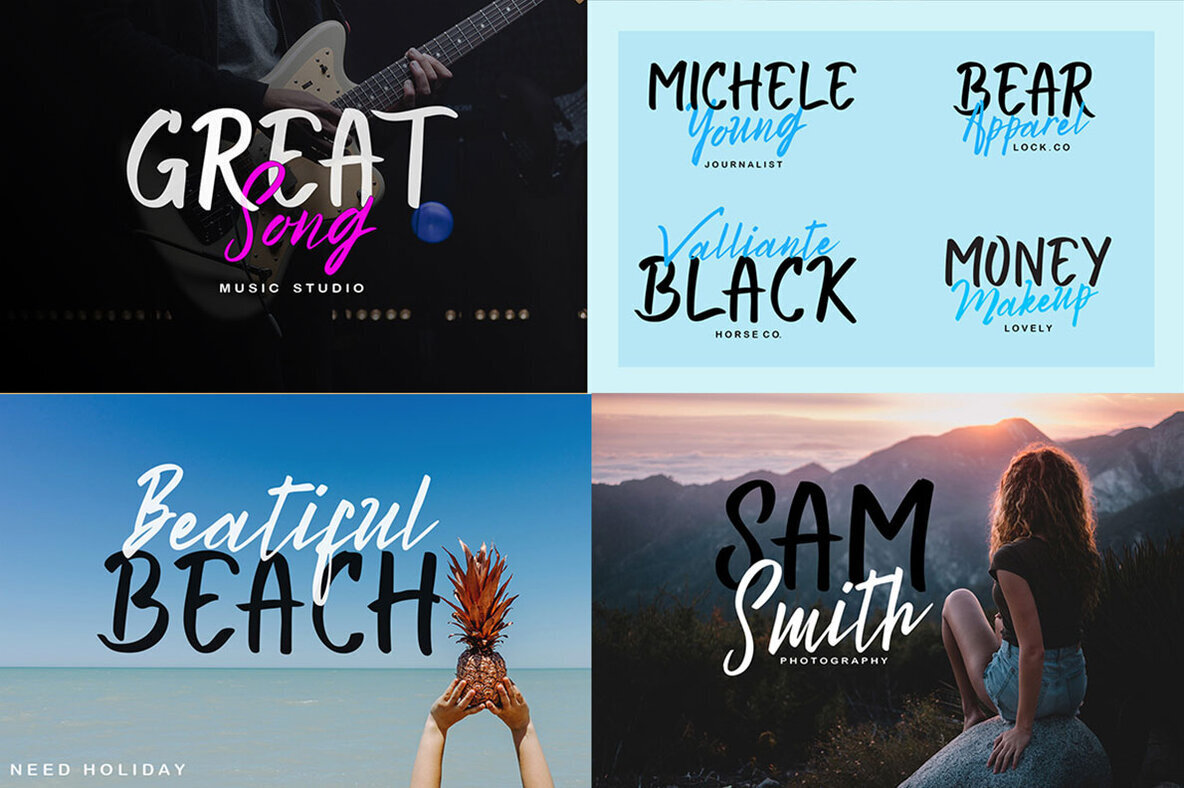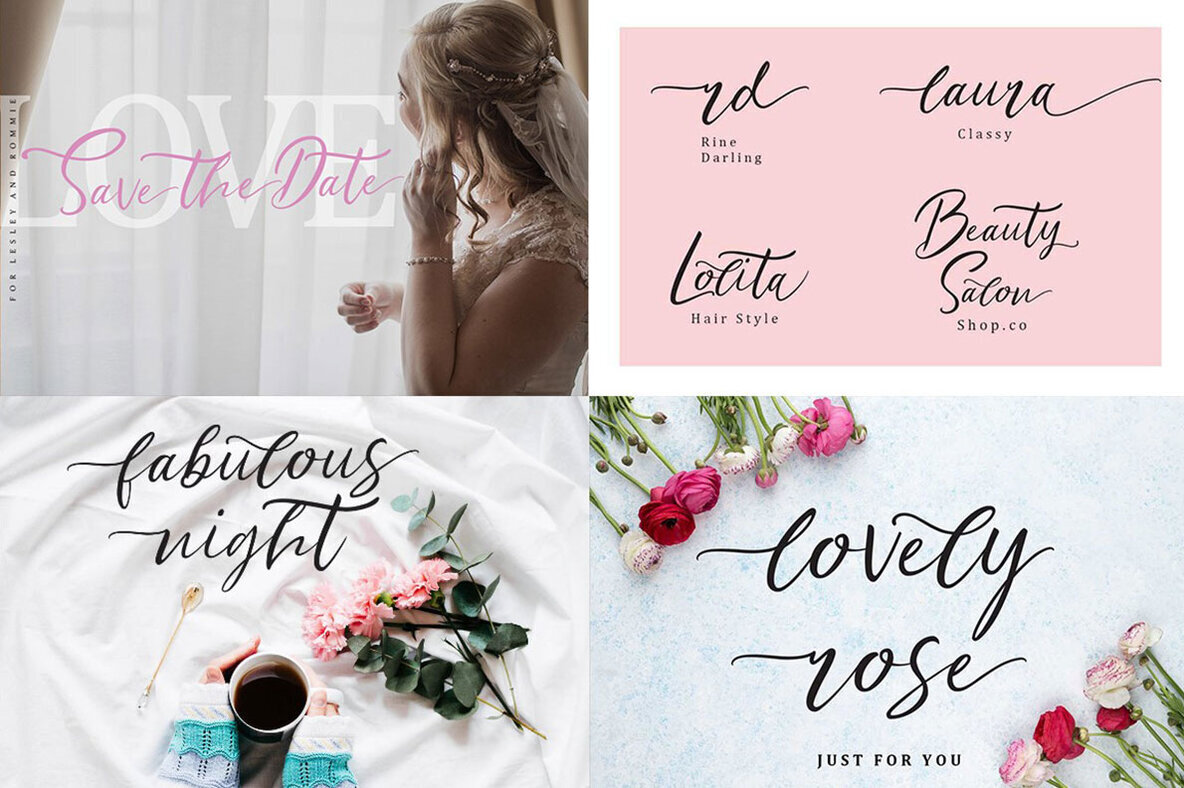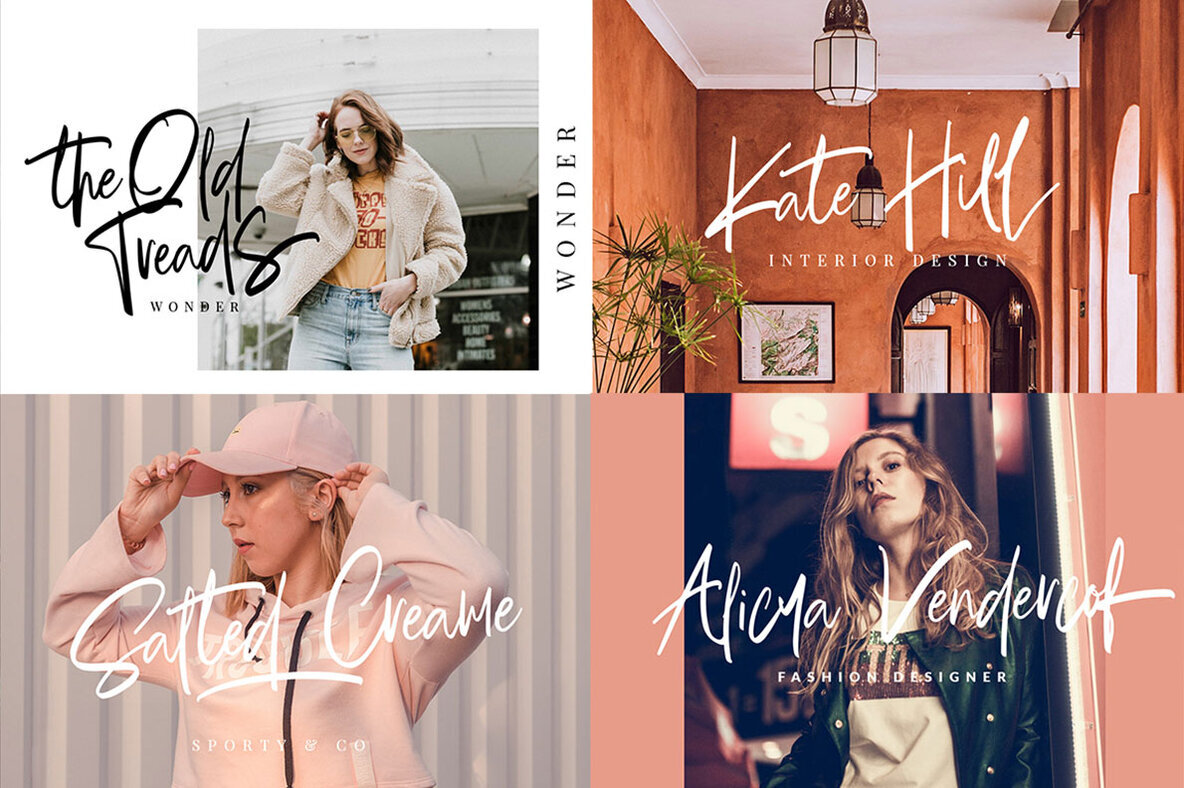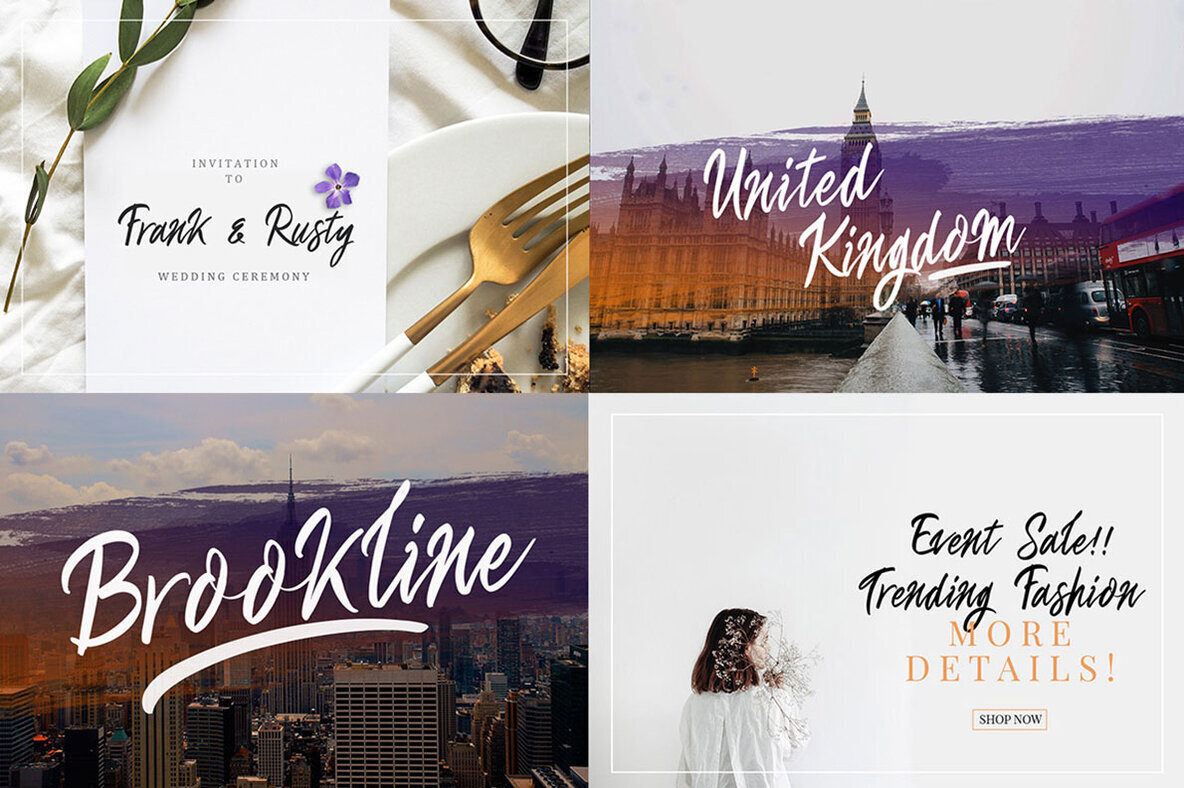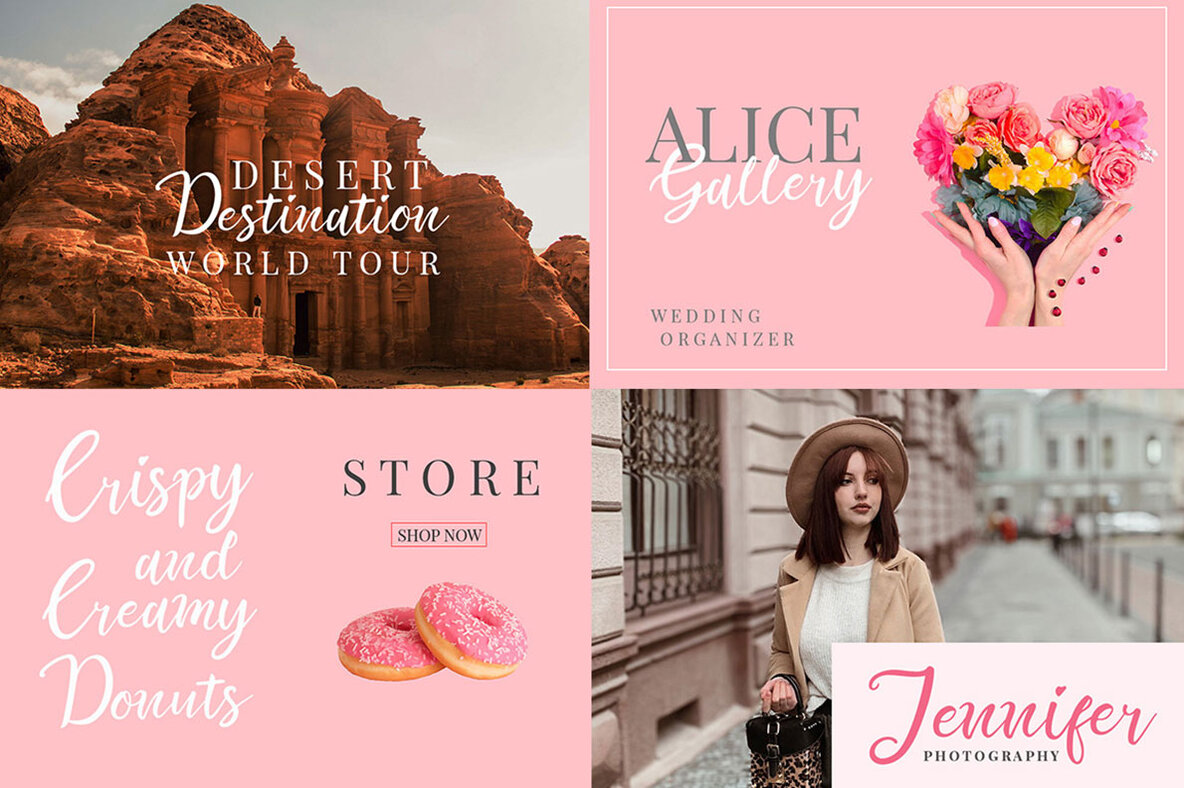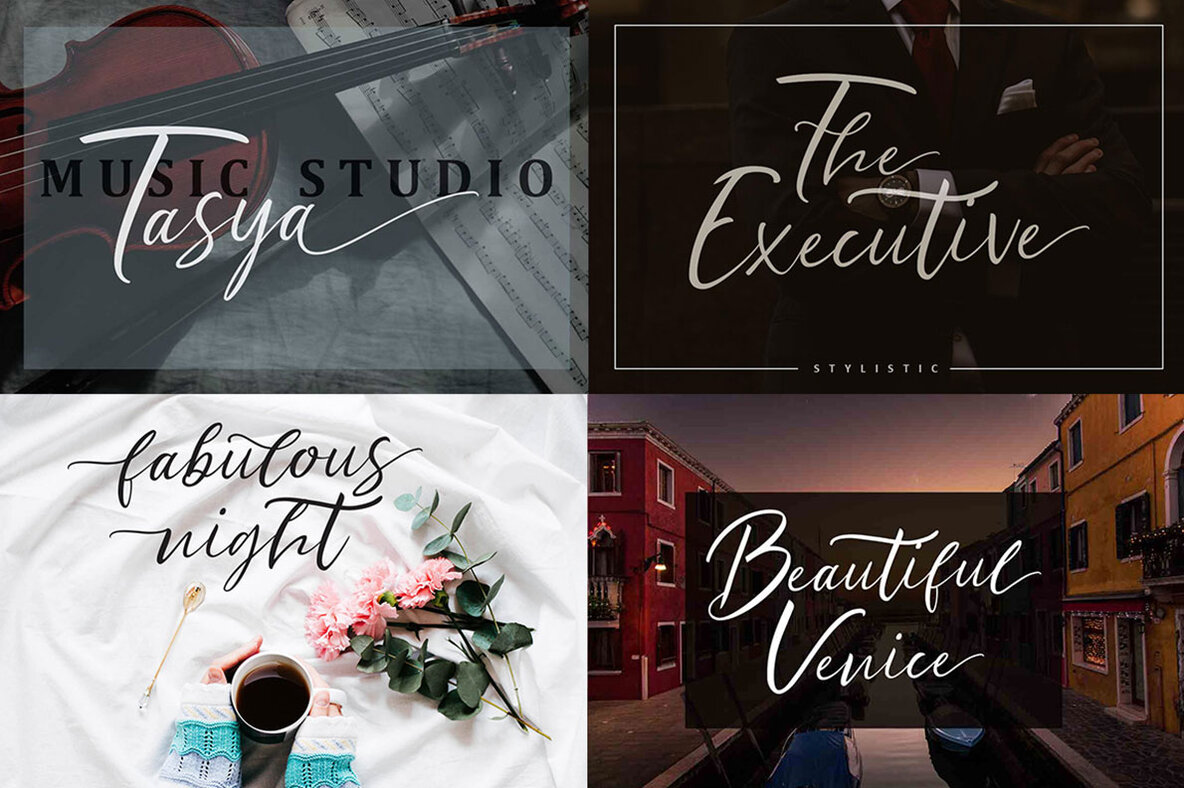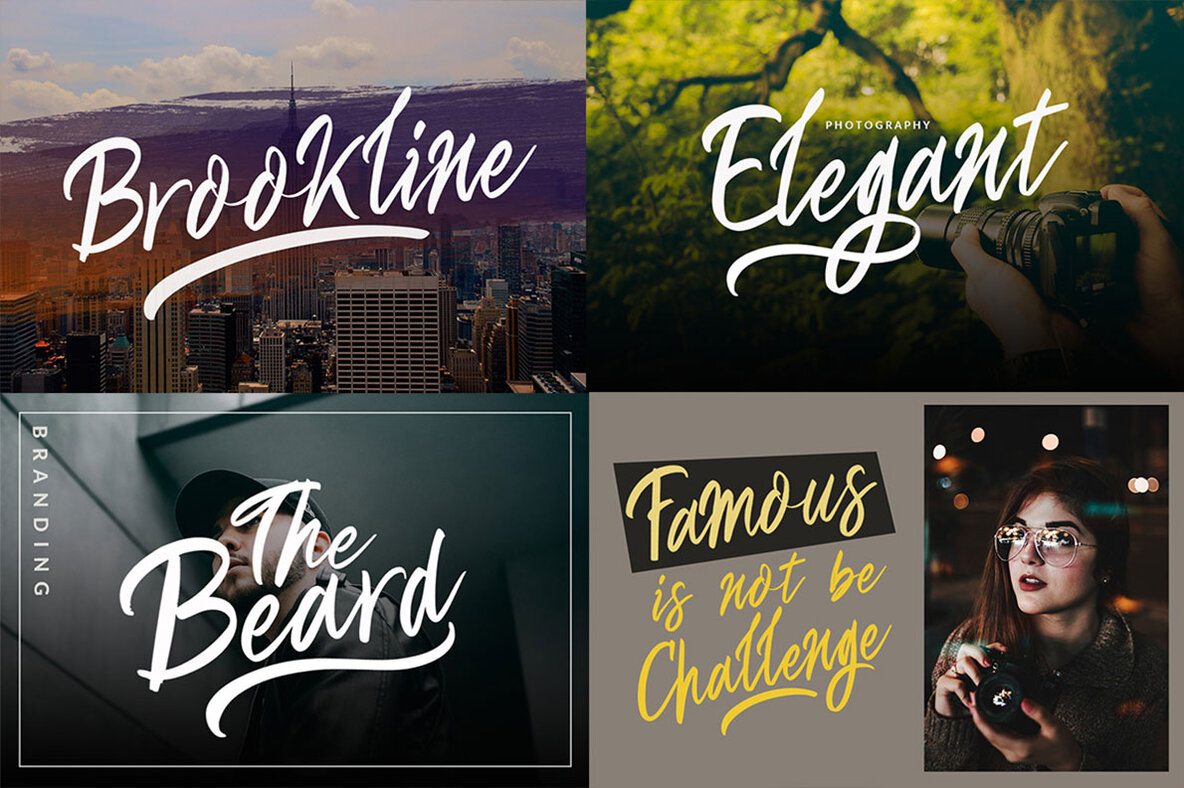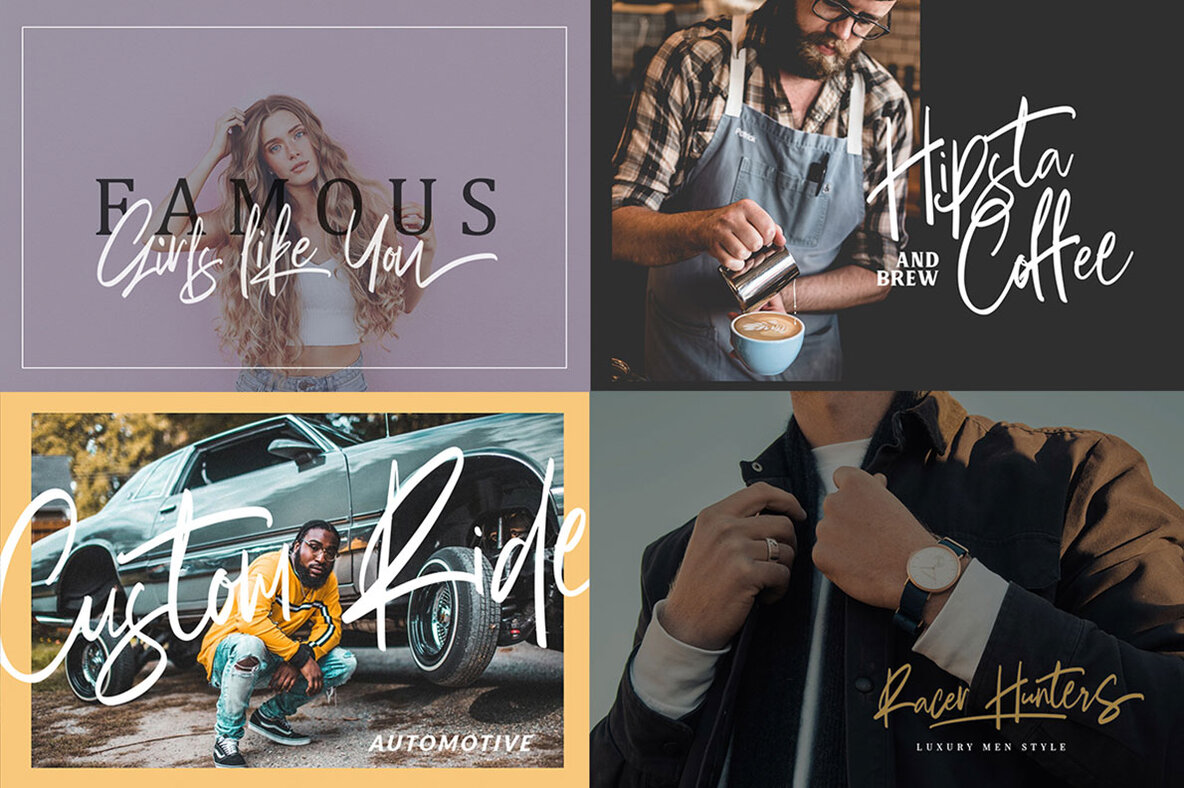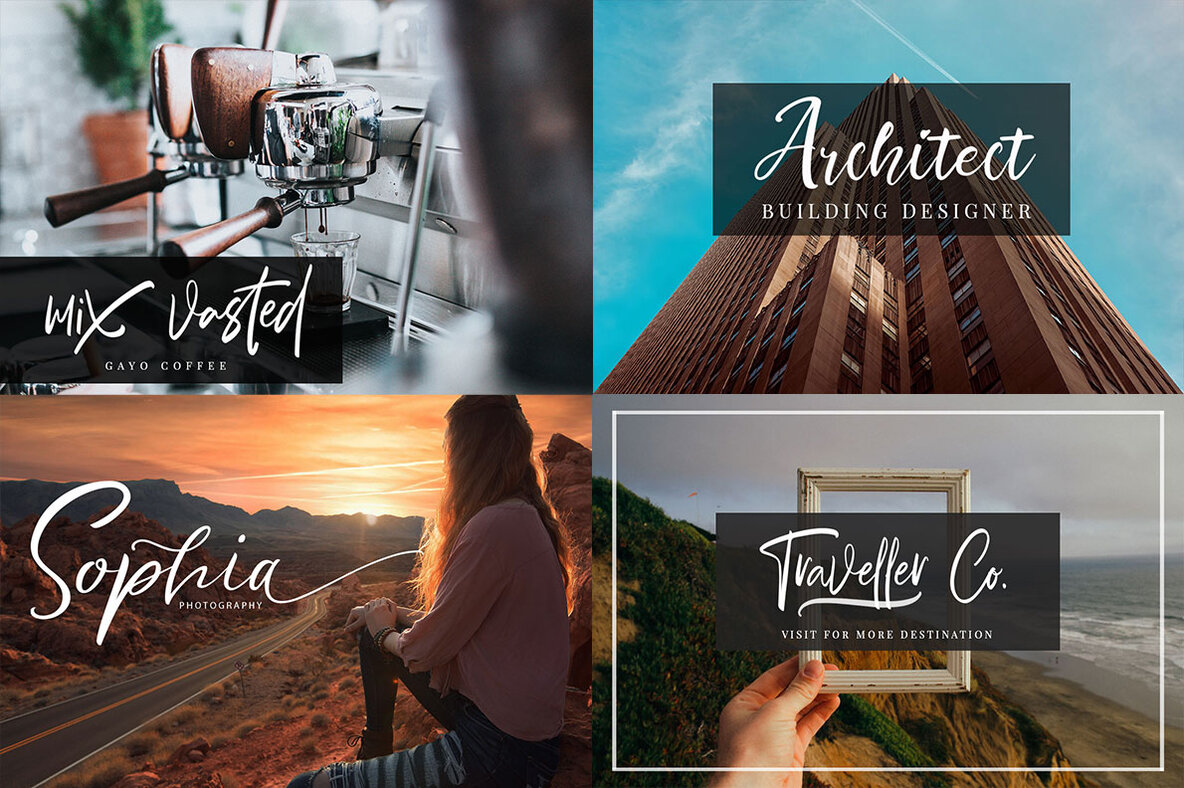
Beautiful Script Fonts Mini Bundle
With this bundle, you'll have access to some beautiful script fonts that are perfect for any type of craft project. With everything needed in one package-including symbols and numbers too!